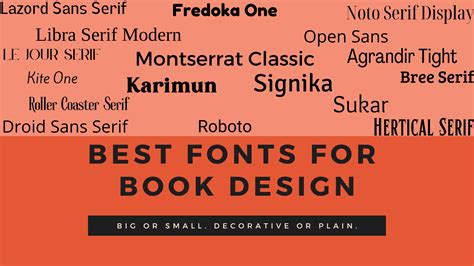
Choose the nonesuch font for books is one of the most critical decisions an source or publisher can make during the production process. While readers might not consciously analyze the typeface on every page, the correct alternative facilitates a seamless reading experience that permit the narrative to take center stage. Choosing the improper font, however, can lead to eye stress, reader fatigue, and a subconscious lack of date with the text. Whether you are formatting a digital ebook or preparing a manuscript for physical print, understanding the balance between aesthetic and functionality is essential for professional-grade book design.
Understanding Typography Basics for Long-Form Text
In book pattern, the primary destination is readability. Unlike web pattern, where fount might be chosen for make individuality or visual flair, book composition pore on long-form substance. The human eye has spent centuries habituating to specific letterforms, and interrupt those design can make a book difficult to complete.
Serif vs. Sans-Serif
The argument between serif and sans-serif typefaces is foundational. Traditionally, serif fonts - those with little "pes" or throw at the ends of letters - are considered the industry touchstone for printed books. These strokes aid head the eye along the line, creating a sense of horizontal flowing that aid in reading blocks of textbook.
- Serif Case: Ideal for novel, memoir, and academic texts. They carry a classic, authorised, and comfy tone.
- Sans-Serif Fonts: Increasingly democratic for modern minimalist designs or children's volume. They offer a clear, incisive look but can sometimes cause "blaze" on high-contrast white newspaper if the space isn't perfect.
Top Considerations for Selecting a Book Font
When evaluating possible fount, consider the technical aspects of readability. Legibility refers to how well individual characters can be distinguished from one another. for instance, in some fonts, the lowercase' l' and uppercase' I' appear identical, which can result to discombobulation in specific context.
Key Metrics in Typeface Selection
| Factor | Description |
| X-Height | The height of the lowercase' x '. A larger x-height is generally easier to read at smaller sizing. |
| Kerning | The spacing between individual character distich. Proper kern prevents letters from appearing to touch. |
| Leading | The vertical infinite between lines of schoolbook. Adequate take prevents line from meld together. |
💡 Note: Aim for a point sizing between 10pt and 12pt for standard body textbook, count on the specific case's design and concentration.
Industry-Standard Choices
Many professional typesetter rely on a few "assay and true" classics that have served the literary community for generations. These baptistery are balanced, time-tested, and widely compatible with different printing technologies.
- Adobe Garamond: Widely regarded as the aureate standard. It is improbably refined, extremely readable, and act easily for virtually any genre.
- Minion Pro: A versatile font that execute exceptionally well in complex layout, including those with table or footer.
- Baskerville: Offers a more scholarly, needlelike appearance, create it a pet for nonfiction, biographies, and pedantic works.
- Palatino: Know for its slightly large x-height, making it very friendly for subscriber who may have sight disablement or for volume print on lower-quality paper.
Matching Fonts to Genre
The genre of your record should prescribe the emotional weight of your font choice. A dense, gothic-inspired seriph might feel stark for a historic whodunit but could be jarring in a modernistic romanticistic clowning. Always read a sample chapter in your chosen baptistry to see if the "phonation" of the typeface agree the voice of your composition.
The Impact of Formatting on Reader Retention
Beyond the case option itself, how you use that case is just as significant. The best font in the universe will miscarry if the margins are too narrow-minded or the paragraph spacing is too tight. A well-formatted page breathes. It render "white space" that grant the reader's mind to rest between time.
Technical Best Practices
- Avoid extremum trailing (the overall spacing of a word or sentence).
- Use coherent alignment - justified schoolbook is the professional standard for books, as it creates unclouded vertical line on both sides of the page.
- Ensure the "quantity" (the duration of the line) is between 45 and 75 quality. Lines that are too long do the reader to lose their property, while line that are too little disrupt the rhythm.
💡 Line: Always do a "soft proof" by printing your draught on a home pressman. Seeing your employment on paper oft reveals issues with font sizing and line spacing that are invisible on a computer blind.
The success of your book is profoundly influenced by the invisible construction provided by its typography. By prioritise legibility, choose a proven fount, and paying aid to the nuances of line spacing and alignment, you make an surroundings where your language can sincerely shine. A serious-minded coming to typography shows respect for your subscriber, ensuring that your story remains the focal point from the first page to the very last news. Irrespective of the genre or formatting, the correct case continue the still mate of every outstanding indication experience.